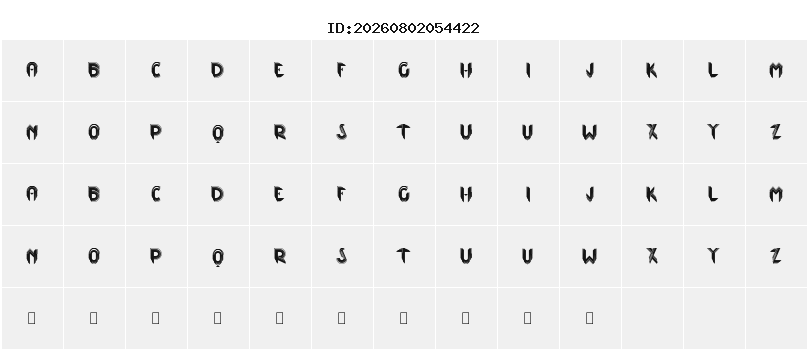
• Font Name: ML Roxy Initials KK
• Designer: Marcia Loub
• Manufacturer: Koeiekat
• Description: Digitized by Koeiekat after a design named Roxy by Marcia Loub. Capital letters only.